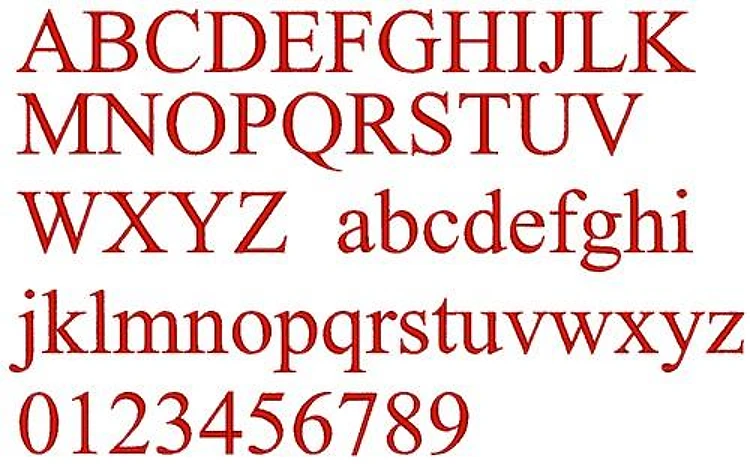
AlpineMastiff Designs is happy to present AMD Times New Roman machine embroidery font which has Classic block machine embroidery font ideal for formal applications like uniforms and corporate branding. This bold red design stands out beautifully on jackets and bags. Available in PES, DST, and more formats. included. If you would like to view more embroidery fonts and alphabets please search our embroidery fonts page.